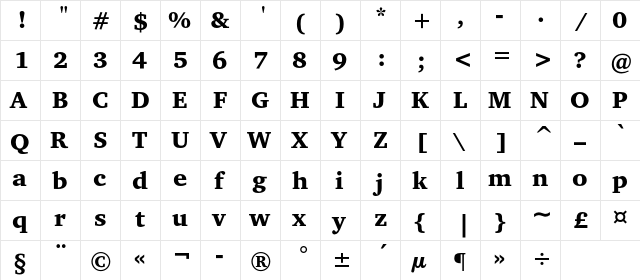
CharterBlackC Regular
Design Context for CharterBlackC Typeface
CharterBlackC is a composed and adaptable typeface that performs quietly and consistently across a wide range of design contexts.